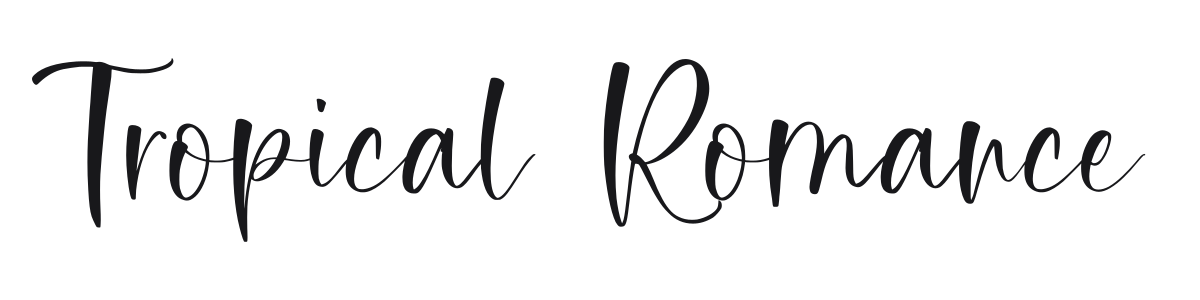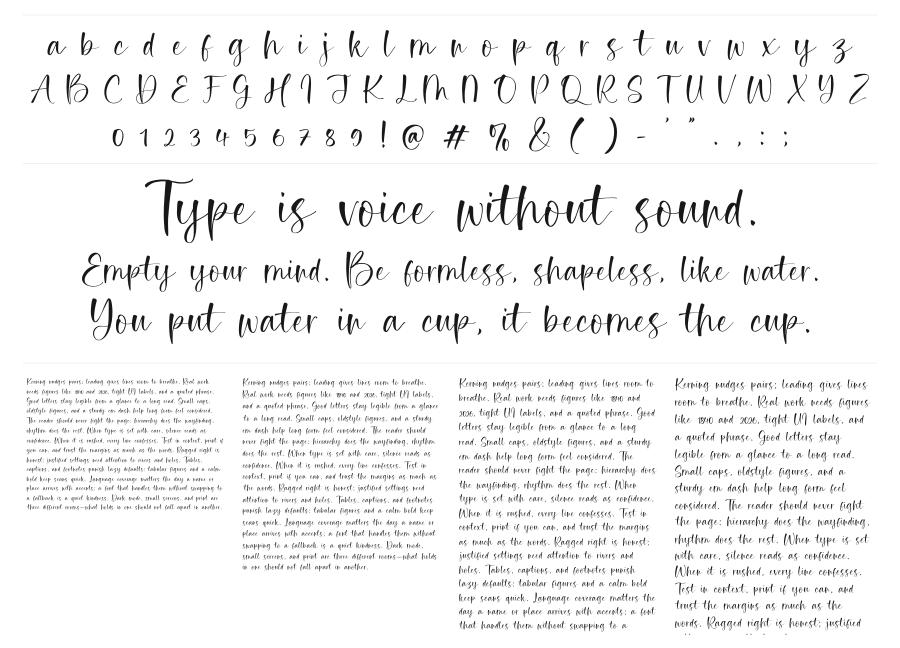
Tropical Romance
Tropical Romance is a flowing casual script from Letterative Studio with a lively bouncing baseline and graceful, looping strokes. The moderate stroke contrast and long swashing ascenders give it a hand-lettered calligraphic feel that reads as both relaxed and refined. It suits wedding stationery, lifestyle branding, and any project that needs warmth and a personal touch.